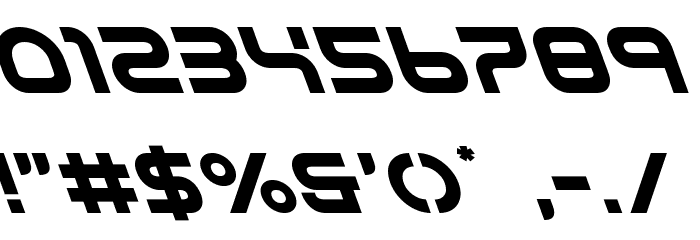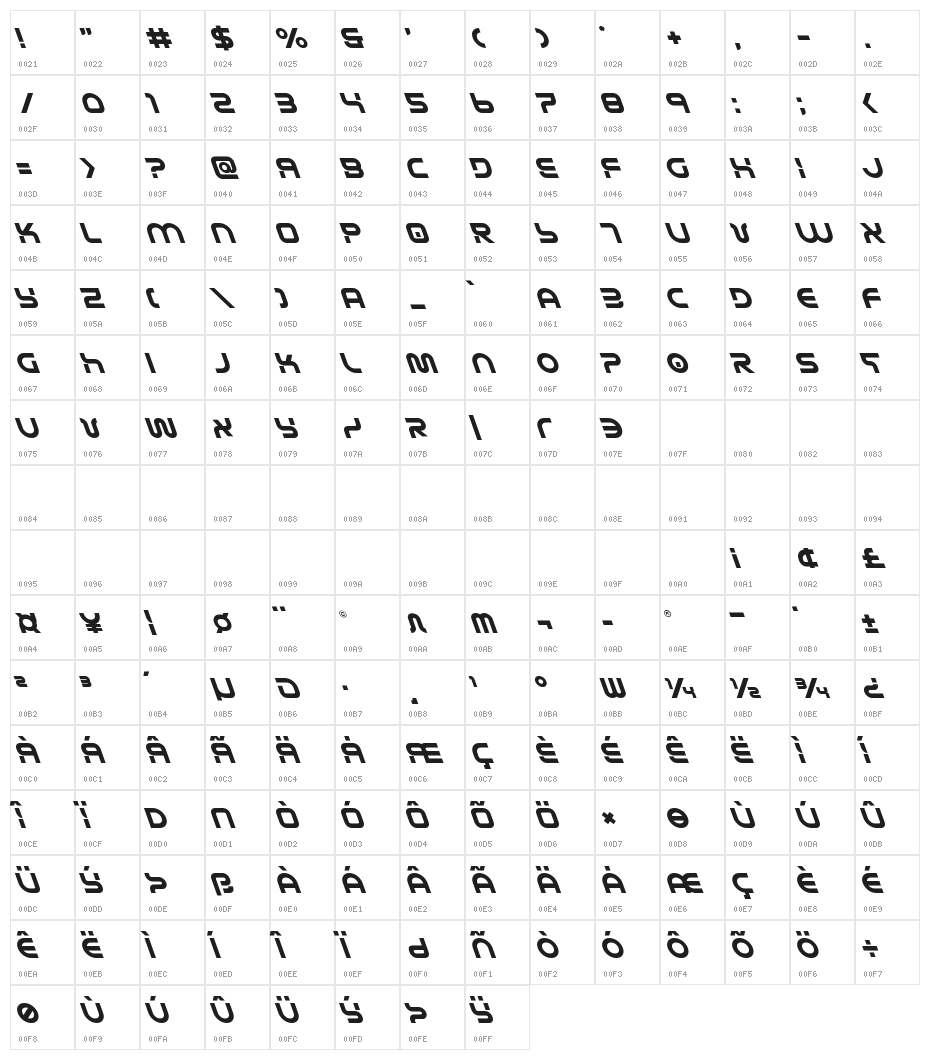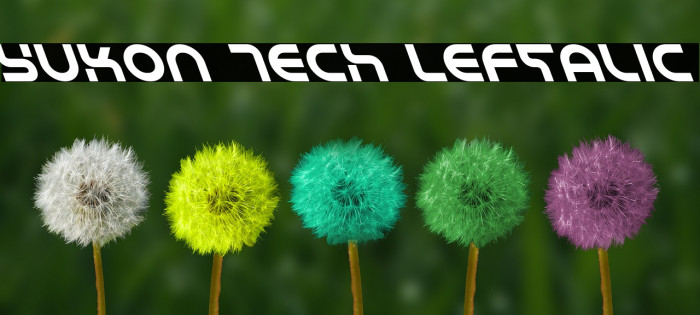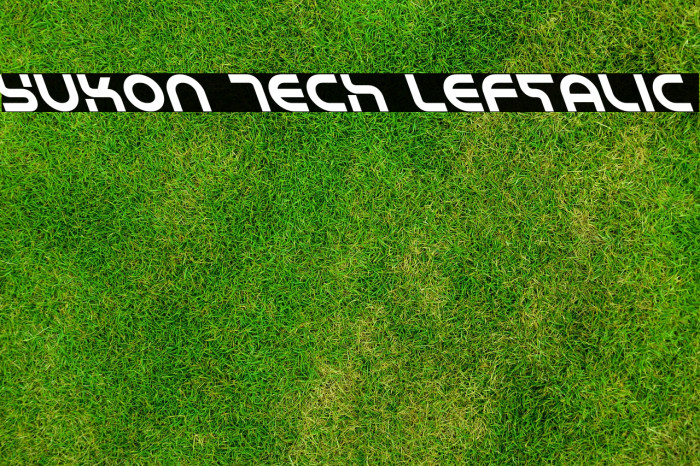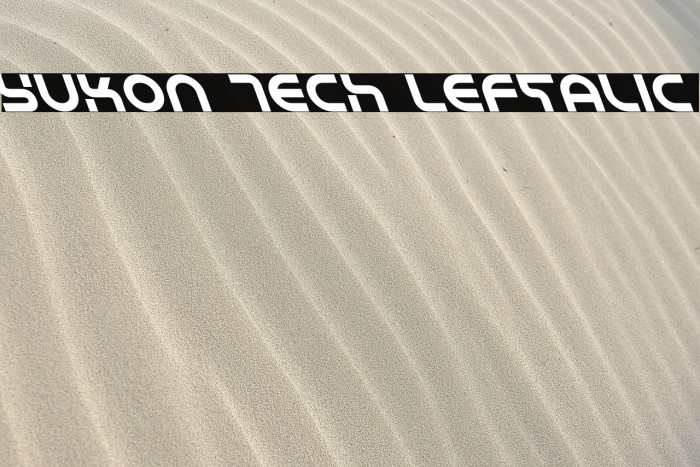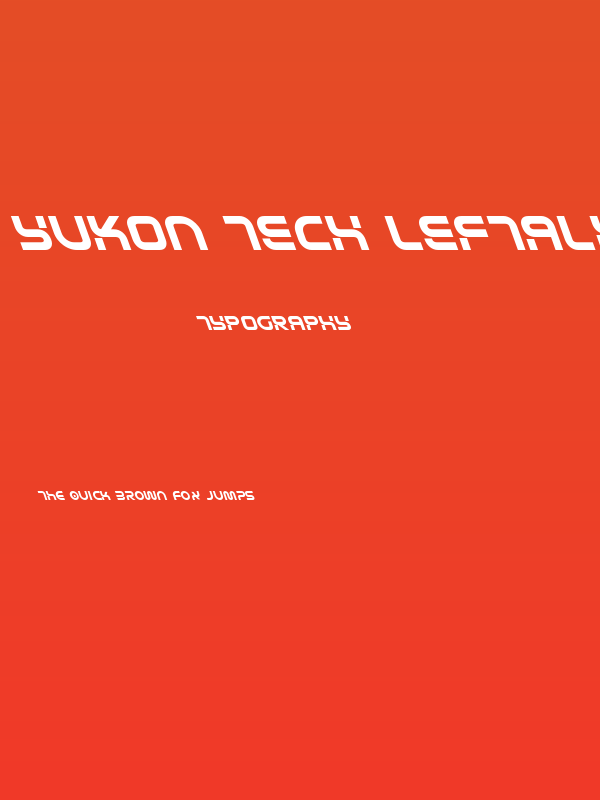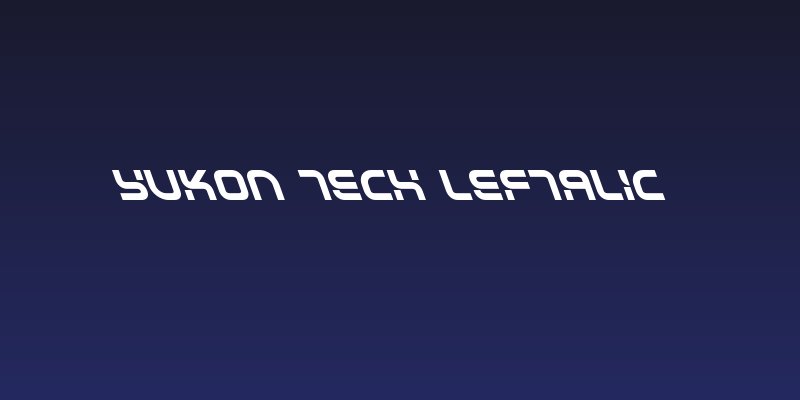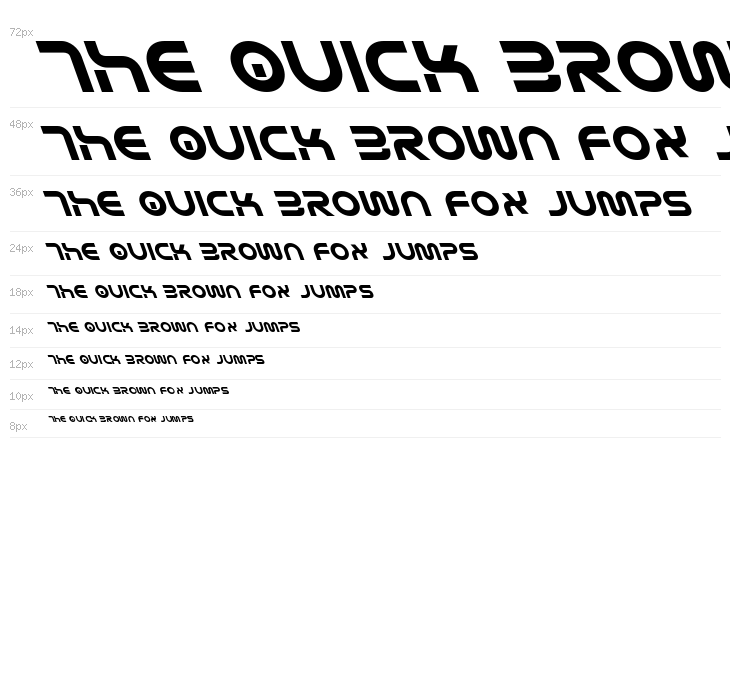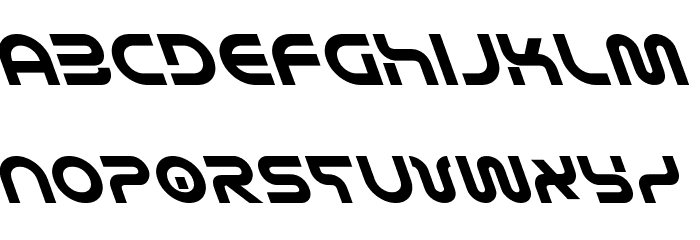
Yukon Tech Leftalic Font
Yukon Tech Leftalic Description
This font features a futuristic and geometric design with a distinct left-leaning italic style. The characters are composed of bold, angular shapes with sharp edges and unique cutouts, giving it a high-tech appearance. The uppercase and lowercase letters maintain a consistent style, with the lowercase mirroring the uppercase in form but with reduced height. Numbers and special characters follow the same design principles, ensuring uniformity across the font. The overall style is modern and dynamic, suitable for projects that require a cutting-edge and innovative look.
| Proposed Projects | Ideal for technology branding, sci-fi themed designs, video game interfaces, and modern advertising. |